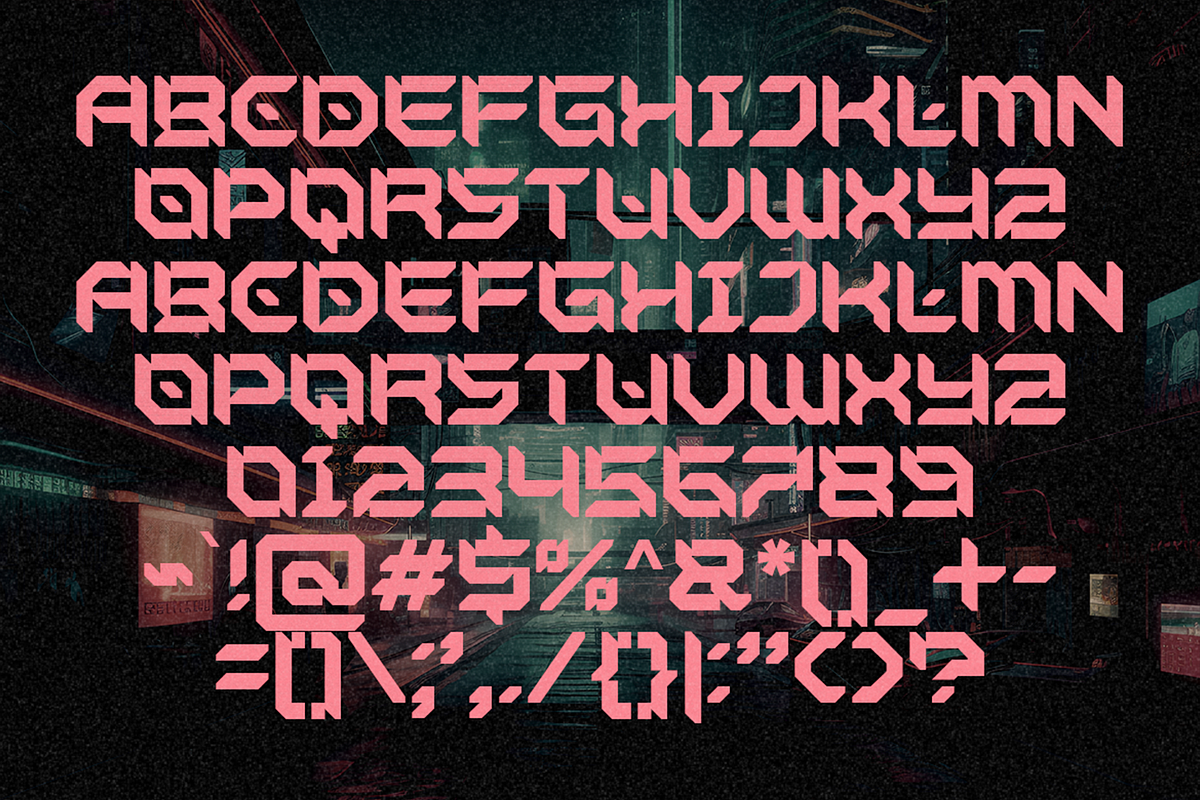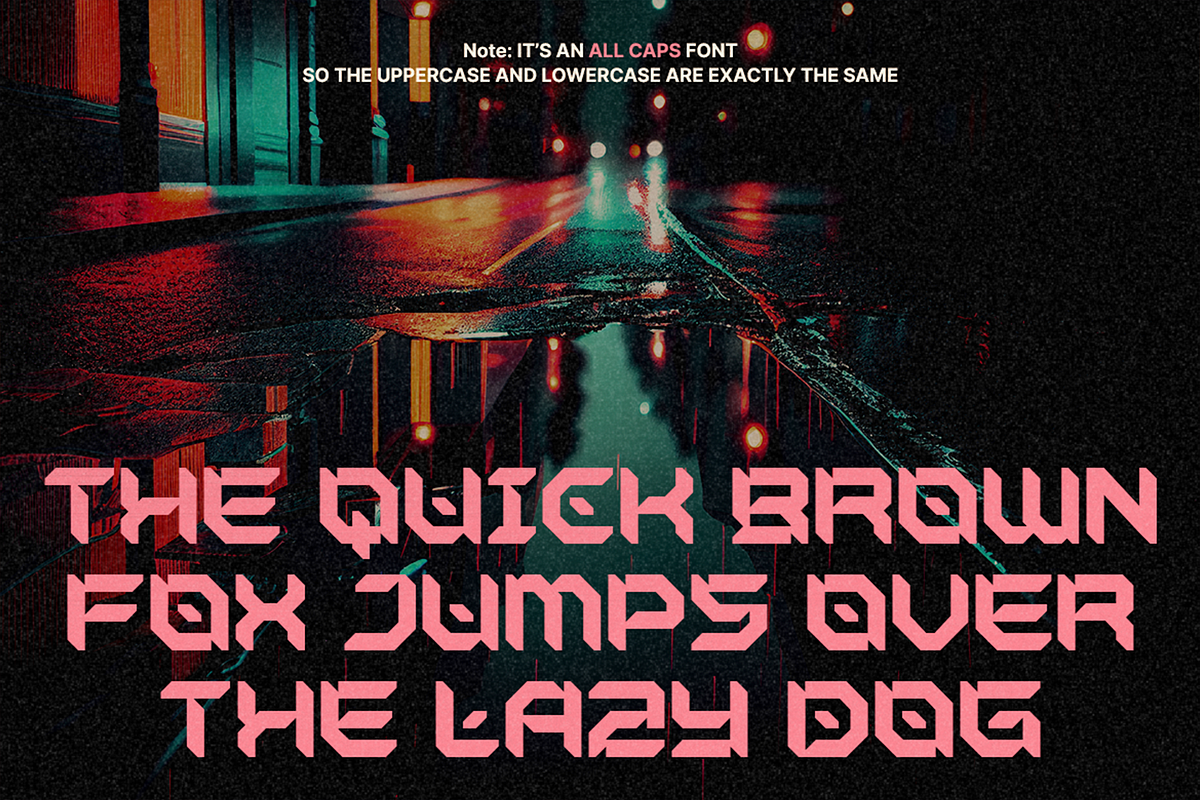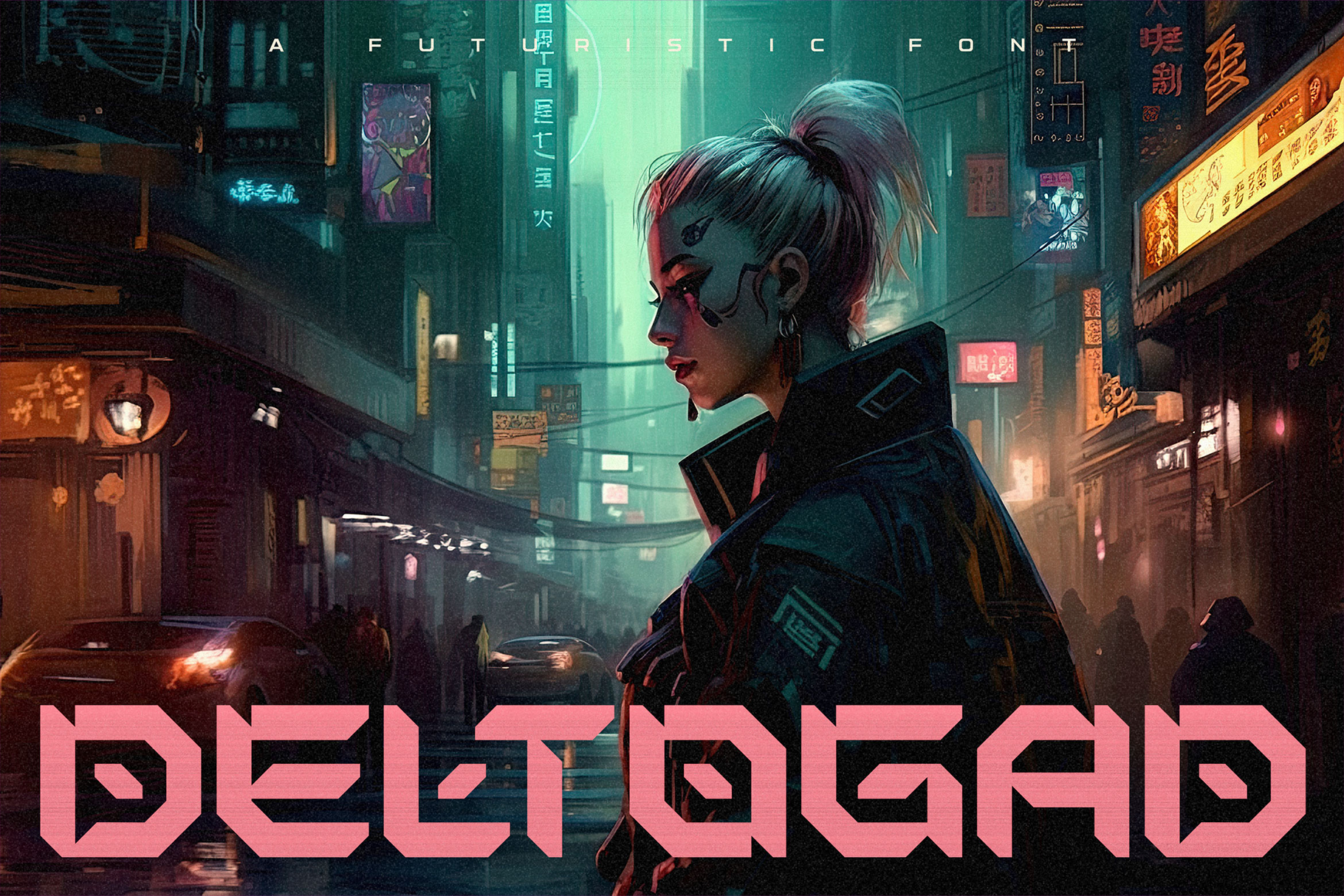
Deltogad - Futuristic Fonts
Step into the world of cutting-edge design with Deltogad, the revolutionary font that embodies the essence of the future. This avant-garde typeface transcends traditional boundaries, offering a bold leap into a new era of visual communication.
Deltogad is not just a font; it's a canvas for your wildest imagination. With its sleek, geometric lines and unbelievable curves, this futuristic font unleashes your creativity, allowing you to express ideas like never before. Whether you're designing captivating logos, eye-catching posters, or futuristic websites, Deltogad will give your creations an edge that sets them apart from the mundane.